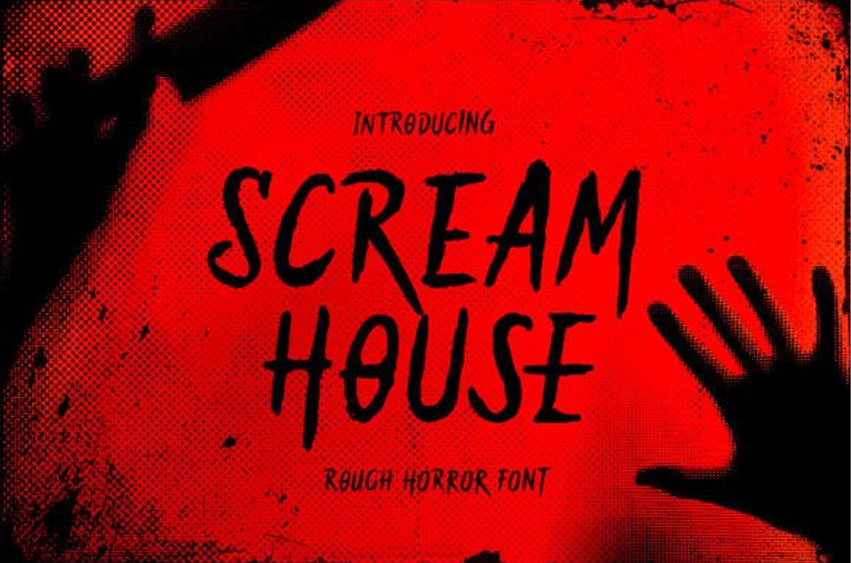
Scream House Font
Scream House Font is a horror font based on a handwritten font with alternates. With its rough edge, this font is suitable for your next project that requires a dramatic look. Combine the uppercase and lowercase to get a stunning look, and use the alternates for maximum use.
You can use this font for any occasion, such as movie posters, Halloween projects, book covers, and quotes. Not limited to horror projects, you can also use this serif for your fancy and fun design. Scream House also supports multiple languages.
Scream House Font Preview